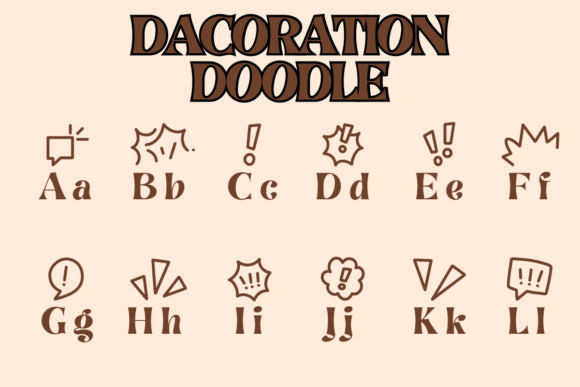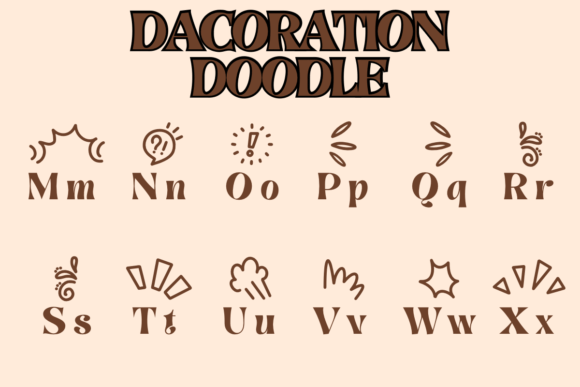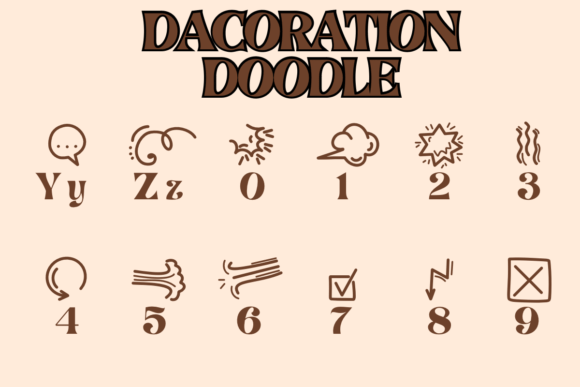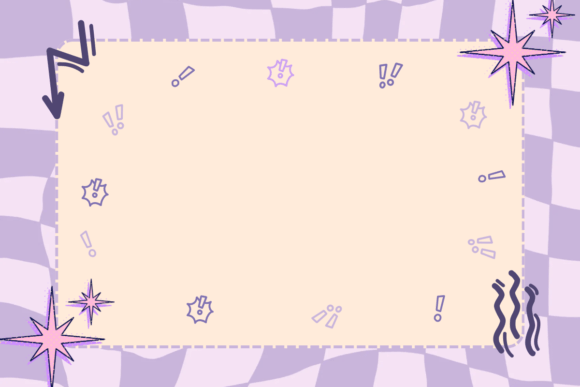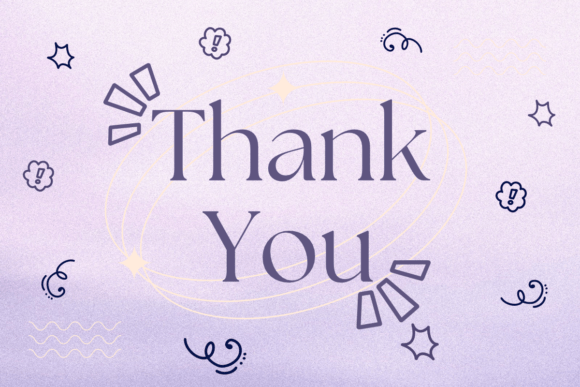
Introduction to Dacoration Doodle Font
Dacoration Doodle is a dingbats font with theme with a sketch style.
This font can enhance your creative projects such as wedding invitations, DIY, crafts, decorations, logos, and many other creative ideas .
Key Features of Dacoration Doodle Font